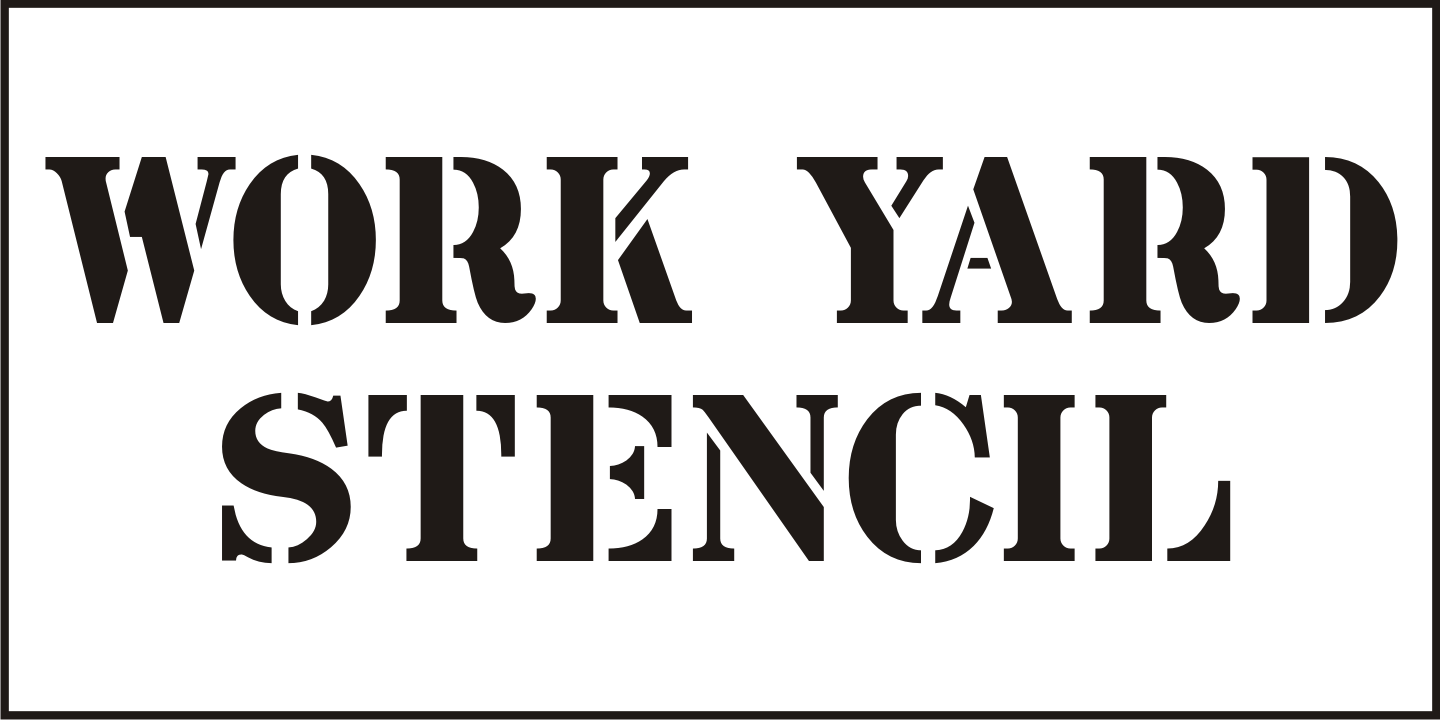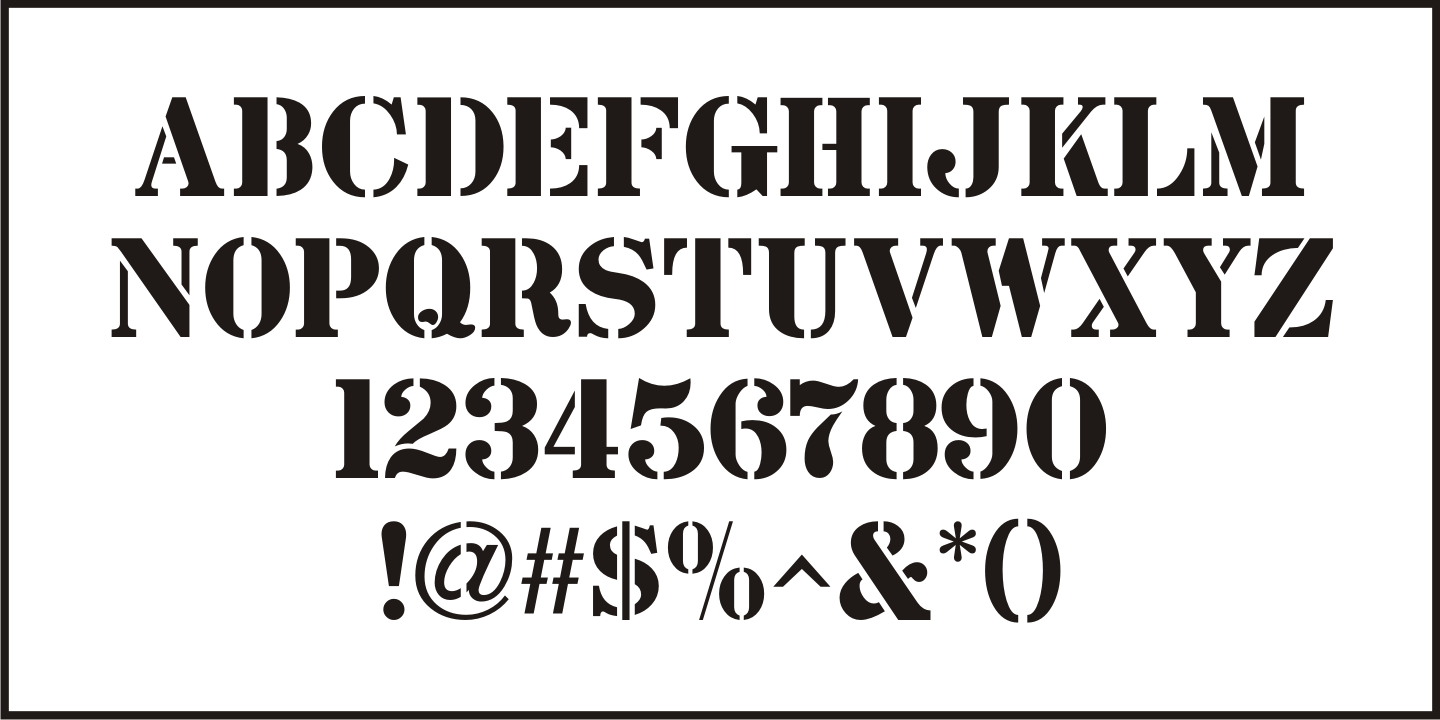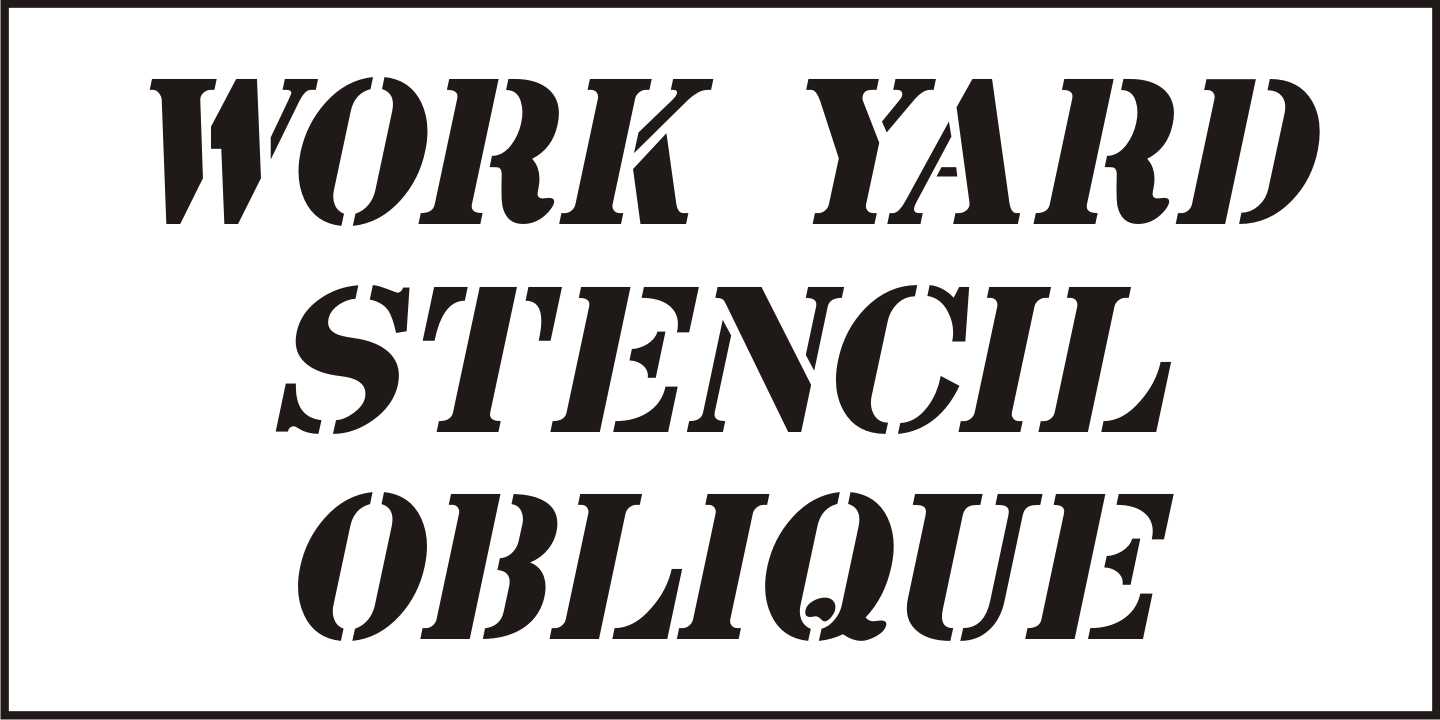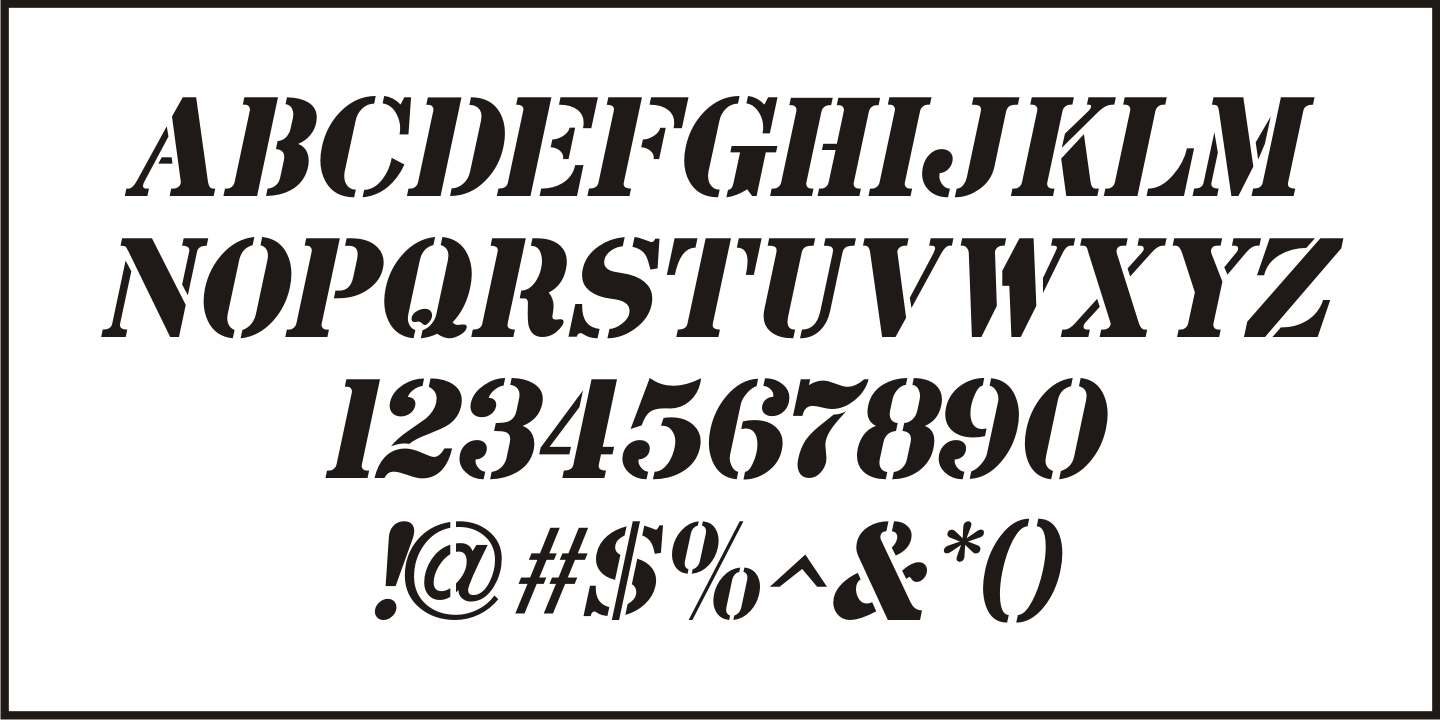
Work Yard Stencil
The image of a set of vintage French tin stencils spotted online was the starting point in designing Freight Yard Stencil JNL. A more traditional ‘B’ and ‘R’ replaces the original characters (which looked kind of awkward due to extra ‘stencil breaks’ within the letters). However, there are a few interesting variants in other characters to set the design apart from similar stencil fonts. Work Yard Stencil JNL is available in both regular and oblique versions.